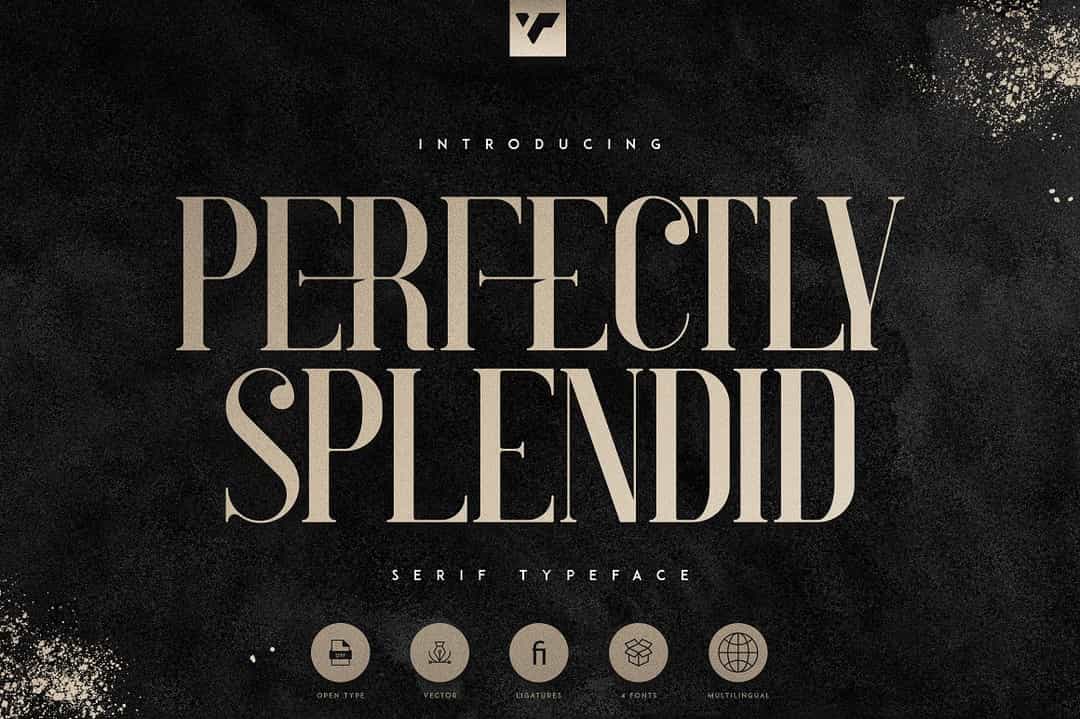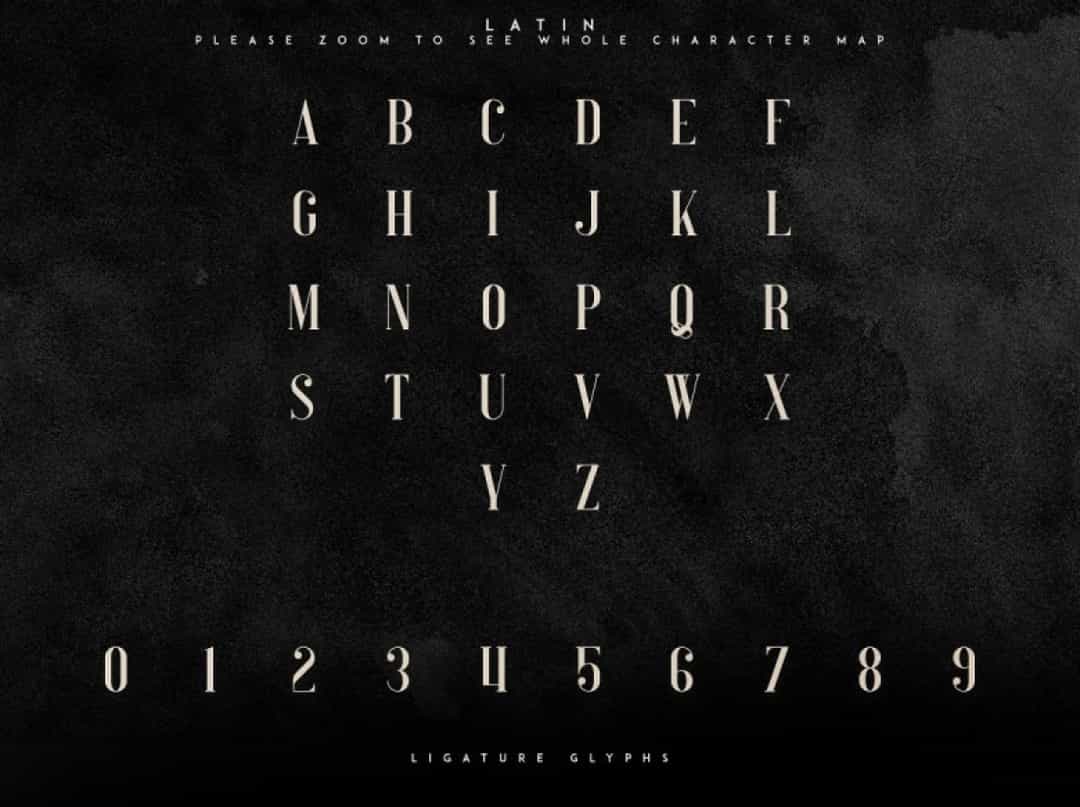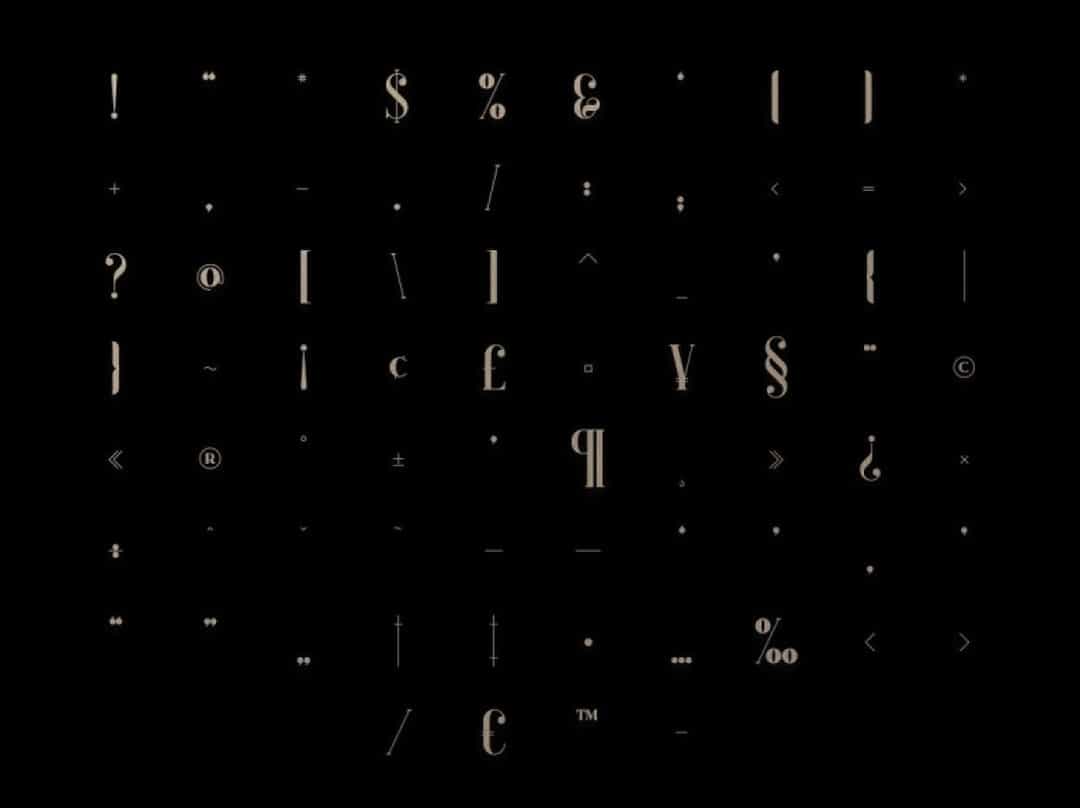
Perfectly Splendid Font is a visually captivating Serif font featuring five fonts that will delight any designer in their next design project. Versatile enough for use at both small and large sizes, basic and advanced Latin character sets are available as well!